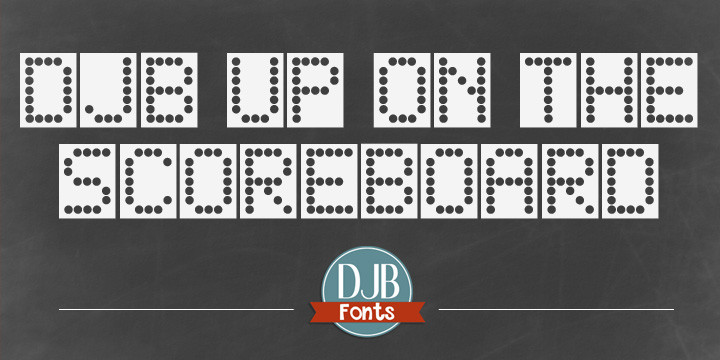
DJB Up On The Scoreboard is a pixel font published by Darcy Baldwin Fonts.
DJB Up On The Scoreboard is a scoreboard font for school, sport and marquee related themes.